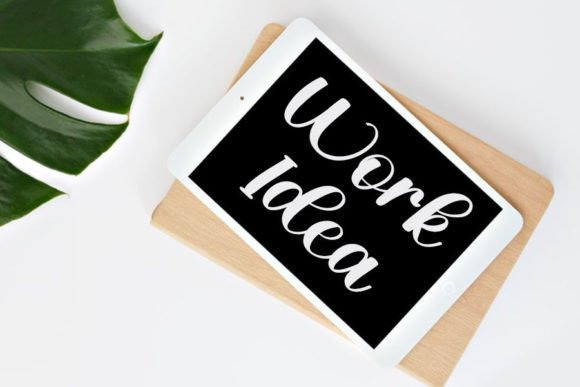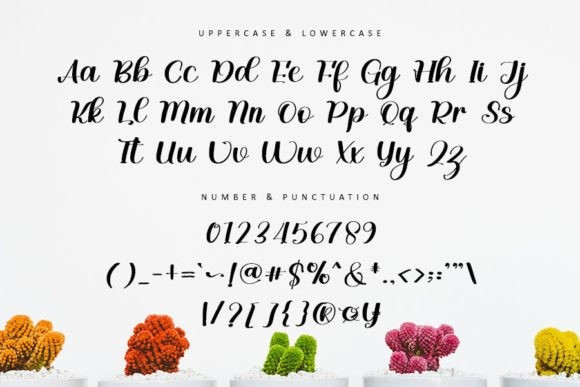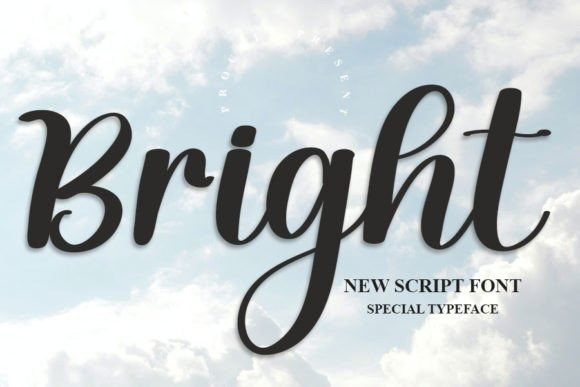
Bright Font
Bright Font is an enchanting handwritten font. This versatile script font has a wide spectrum of applications ranging from greeting cards to headlines and is guaranteed to add a romantic feel to your next project.